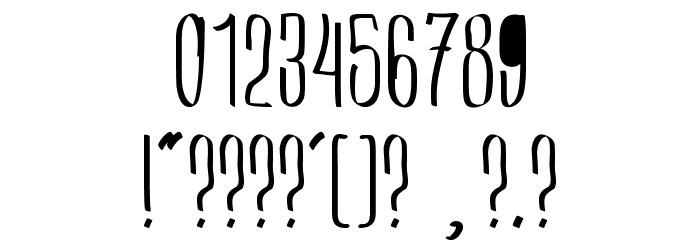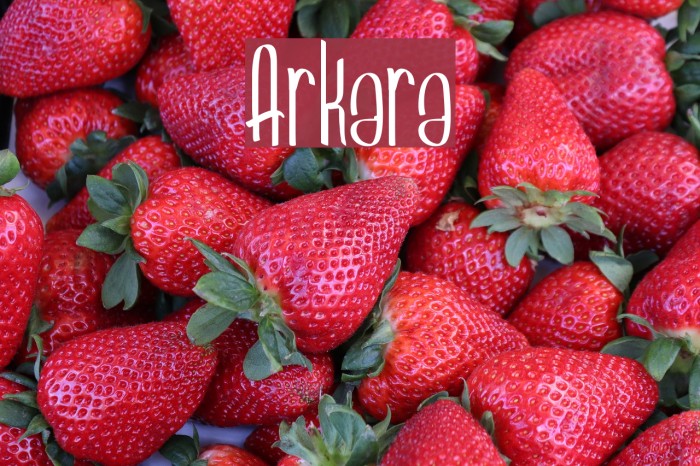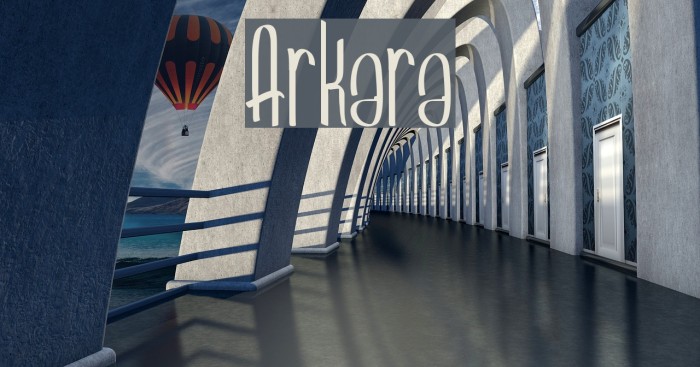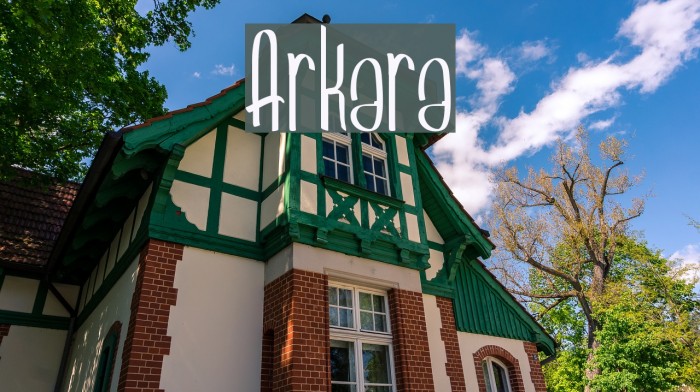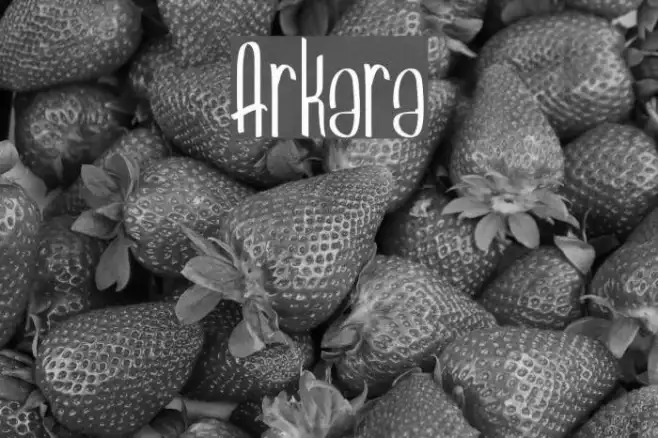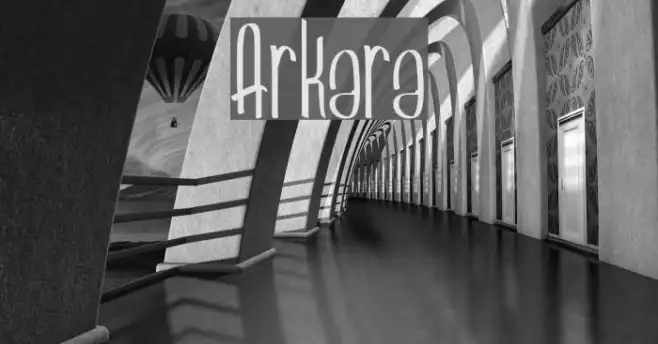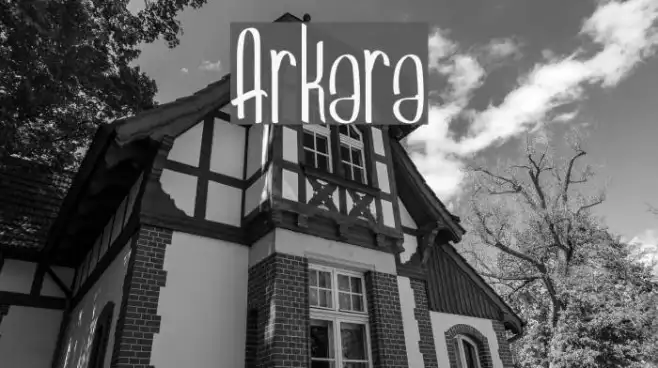
Arkara Font
This font features a unique and playful design with elongated, narrow characters that give it a whimsical and artistic feel. The uppercase letters are tall and slender, while the lowercase letters maintain a consistent style with a slightly more relaxed form. The numbers are distinct and match the overall quirky aesthetic. Special characters are creatively designed, adding to the font's charm. The strokes are uneven, contributing to a hand-drawn appearance, and the overall look is both modern and artistic, making it suitable for creative projects.
A whimsical, artistic font with elongated, narrow characters and a hand-drawn feel.
- Proposed Projects: Ideal for creative projects such as posters, invitations, and branding materials that require a playful and artistic touch.
- Overall Style: Modern, Artistic
- Use Case: Headlines, Posters, Invitations